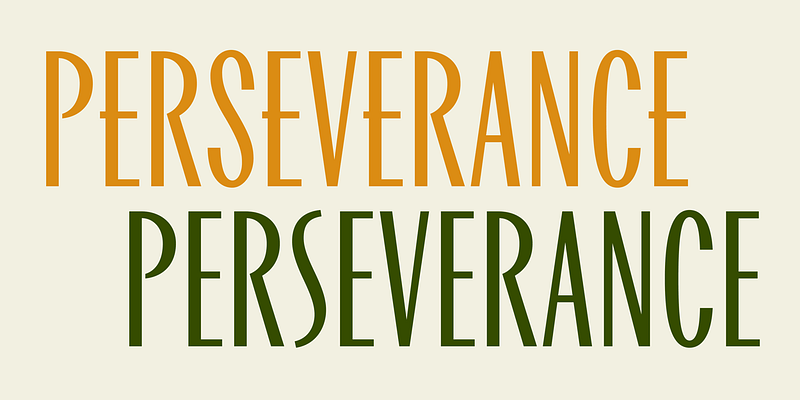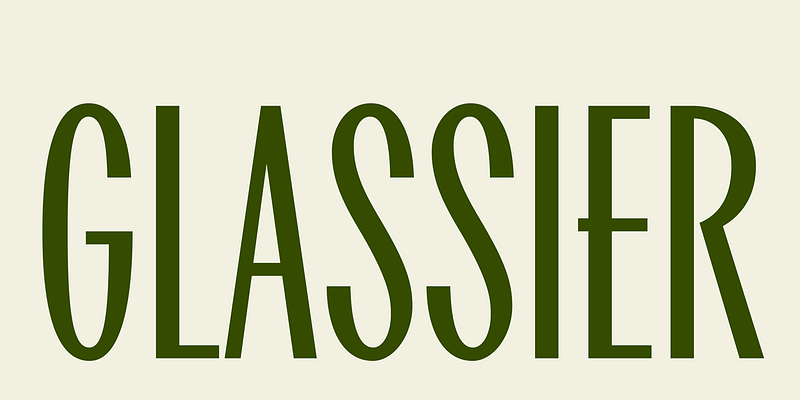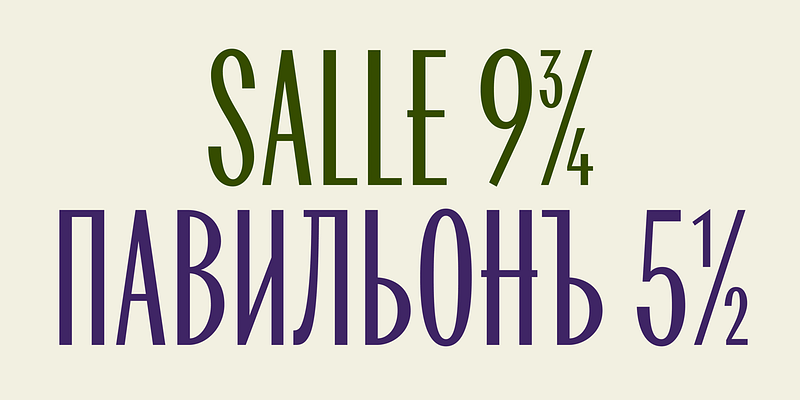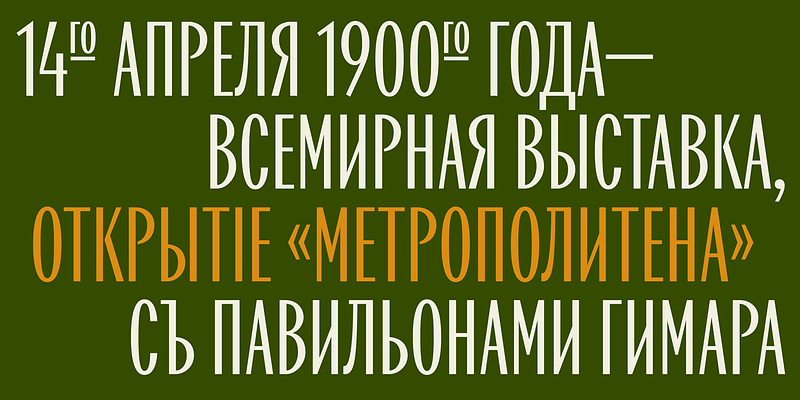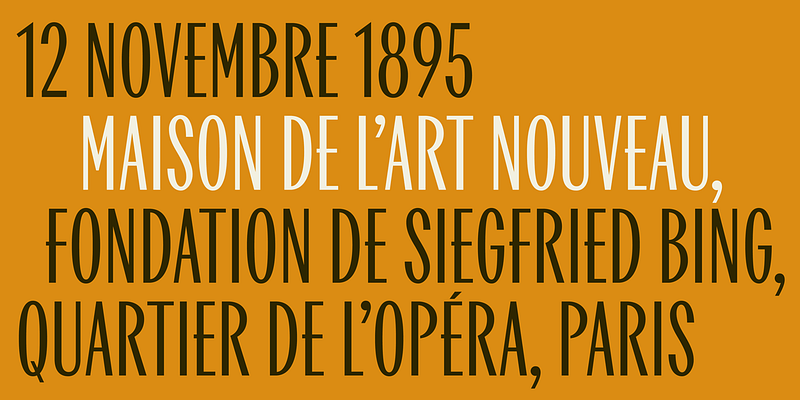
CoFo Glassier is an elegant display typeface inspired by modernism. It blends influences from two worlds: on the one hand, it is based on the typography of the mid-1950s to the mid-1960s period in the USSR, and on the other hand, it incorporates distinct references from architectural lettering in the USA.
Due to its narrow proportions and subtle stroke contrast, CoFo Glassier can work both in large and medium-sized texts. And its sonorous and refined character will make it a bright accent in your project.